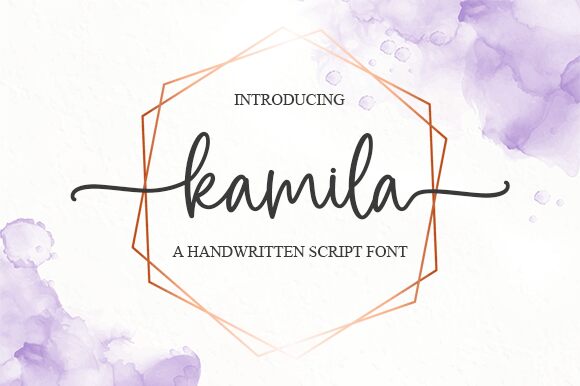
Kamila
Kamila, designed by Graphix Line Studio, stands out as a semi-light, handwritten font that exudes elegance and modernity. With its well-balanced characters and smooth curves, this font captures the essence of contemporary handwriting while remaining versatile enough for an array of creative projects. Ideal for fashion branding, editorial content, and personal invitations, Kamila adds a personal touch that resonates with sophistication.
Its distinctive script style is tailored to elevate your design work with a sense of authenticity and flair that only a carefully crafted typeface can provide.
Explore the potential of Kamila to infuse your next project with both charm and character.